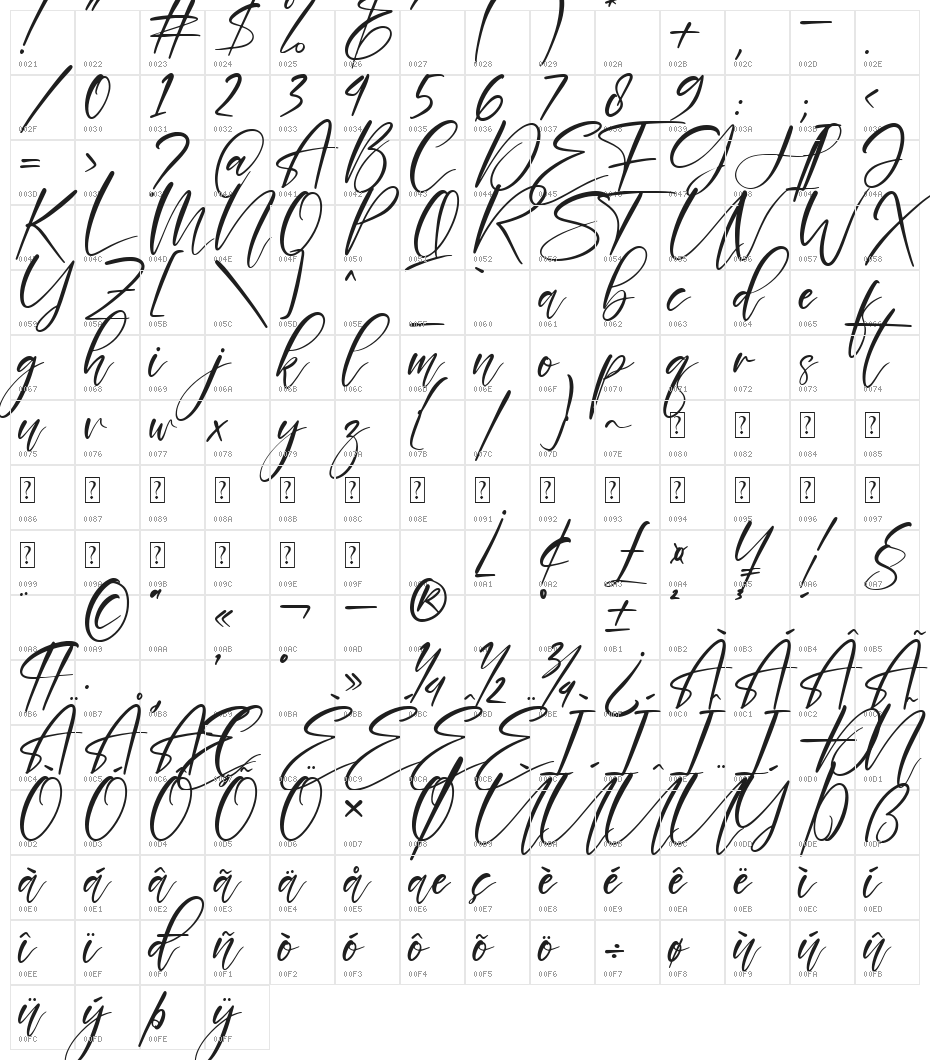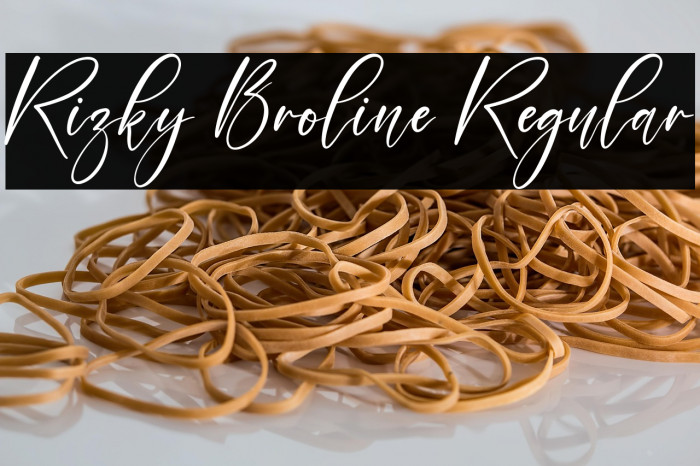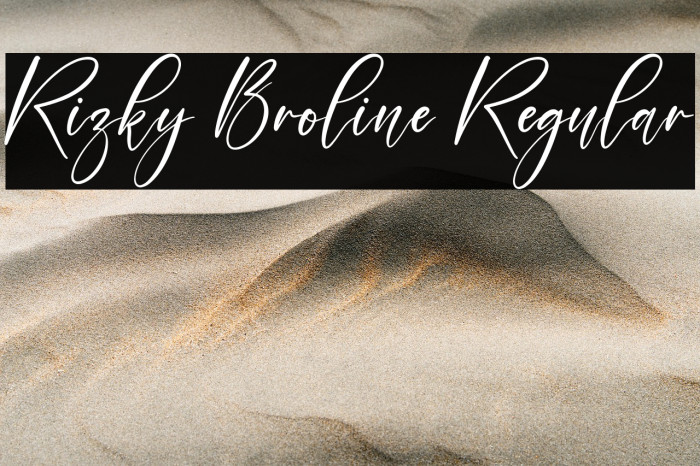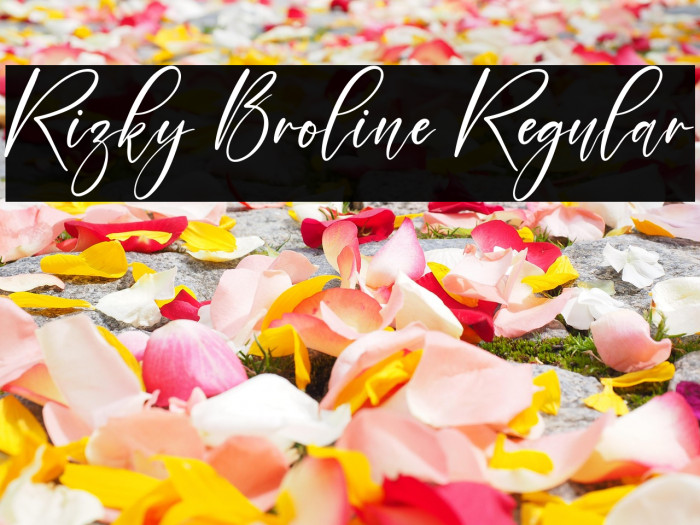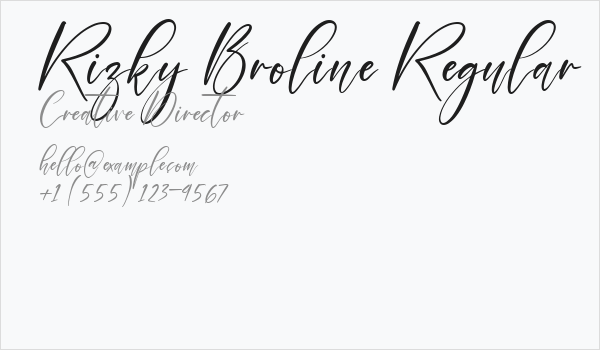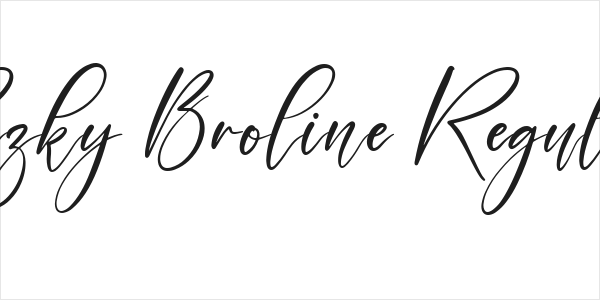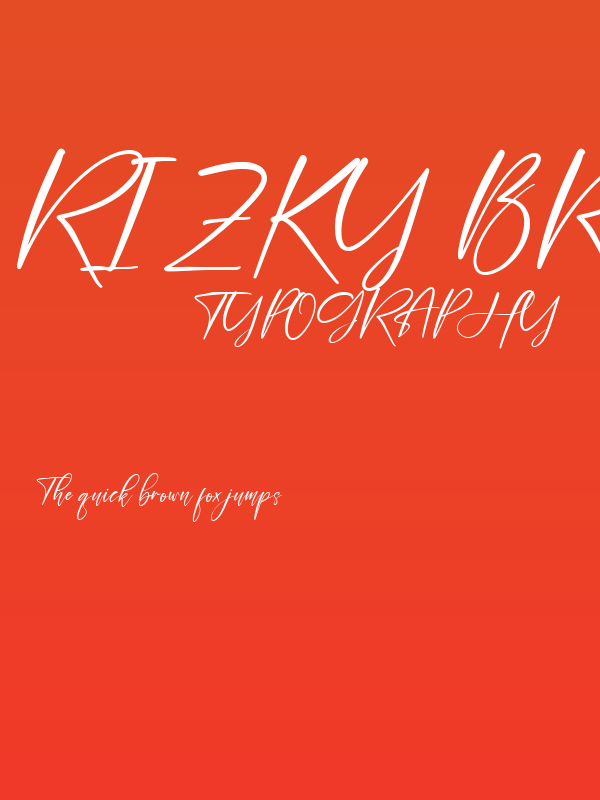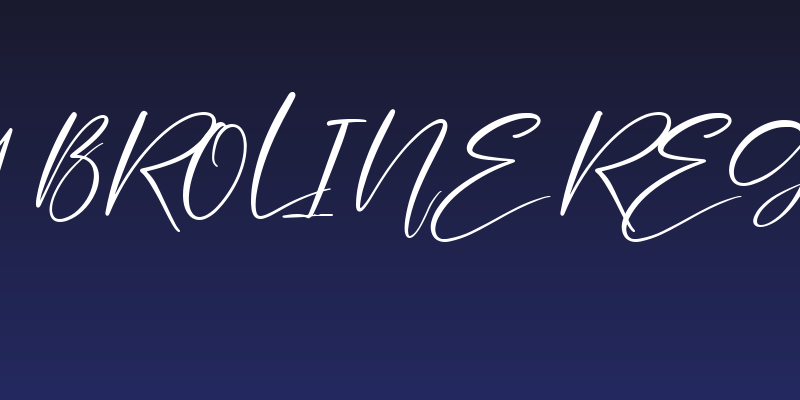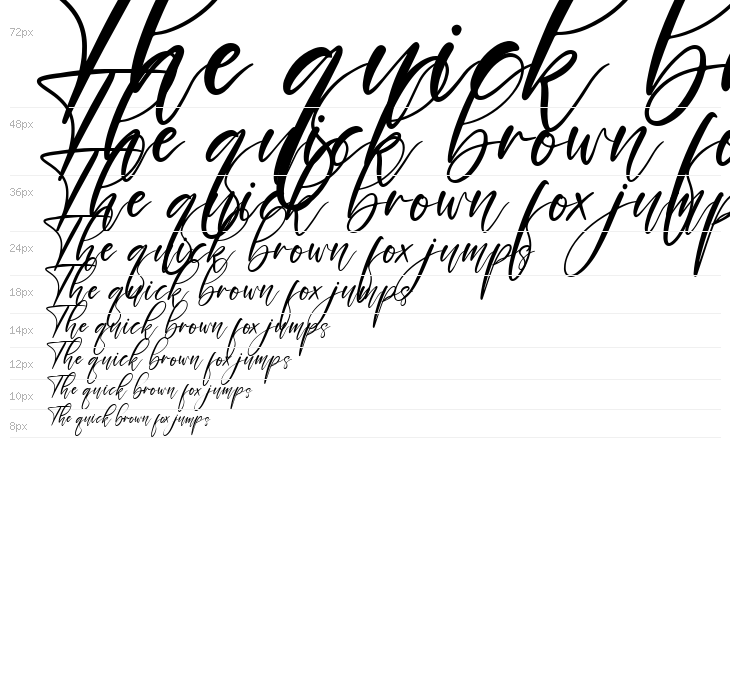
Rizky Broline Regular Font
Rizky Broline Regular Description
A flowing, elegant script font with a handwritten style, featuring smooth curves and a natural, cursive appearance.
| Use Case | Logos, Invitations |
| Proposed Projects | Invitations, greeting cards, branding, and logos. |